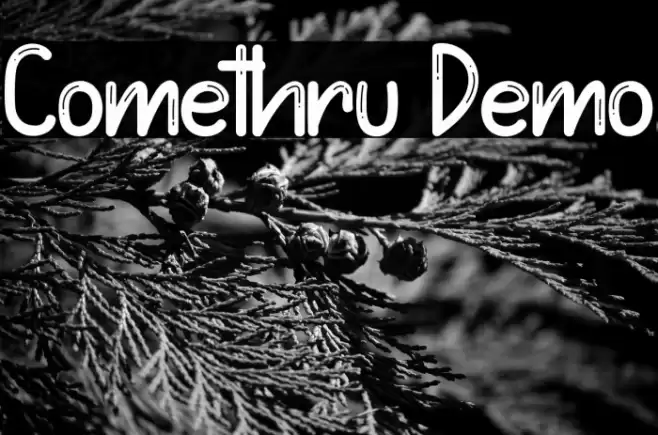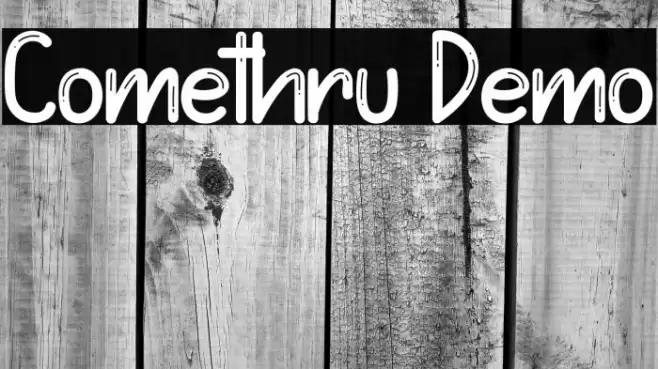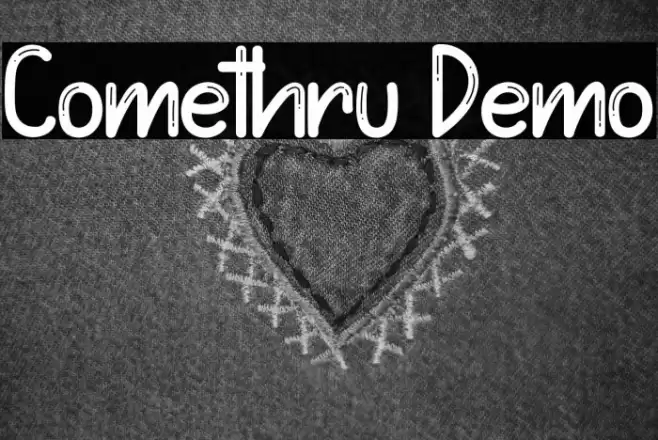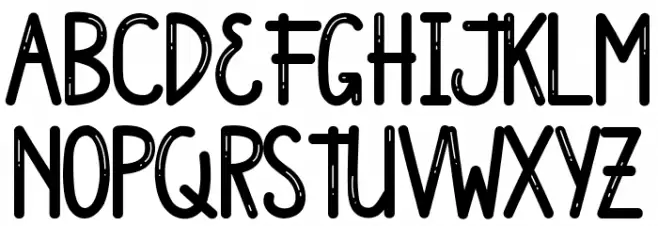
Comethru Demo Font
Comethru Demo Description
This font features a playful and whimsical design, characterized by its bold and rounded letterforms. Each character is crafted with a unique, hand-drawn quality that adds a sense of individuality and charm. The strokes are consistent in width, giving the font a uniform appearance, while subtle variations in the curves and angles add an organic feel. The uppercase and lowercase letters maintain a cohesive style, with the lowercase letters slightly more compact. The font includes a full set of numerals and a selection of special characters, making it versatile for various design needs. Its distinct style is perfect for projects that require a touch of creativity and fun.
A playful, hand-drawn font with bold, rounded letterforms and a whimsical style from Regular fonts.
- Proposed Projects: Ideal for children's books, playful branding, greeting cards, and creative posters.
- Overall Style: Whimsical, Playful